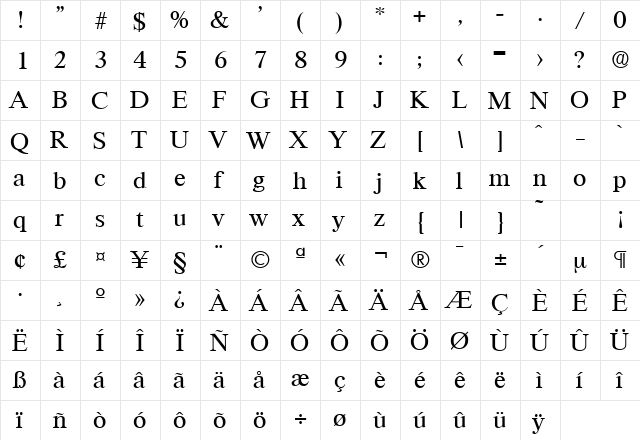
Riccione-Serial Regular
Design Context for Riccione-Serial Typeface
Riccione-Serial is a composed and adaptable typeface that performs quietly and consistently across a wide range of design contexts.